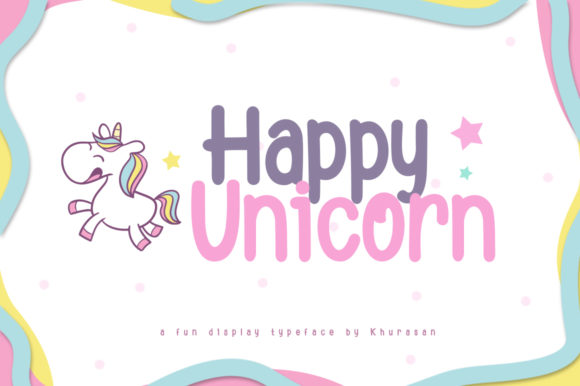
Unleash your imagination with Happy Unicorn Font, a playful and captivating display font that will transport you to a world of whimsy and wonder. This typographic marvel, meticulously crafted by the skilled artisans at Khurasan, is an enchanting fusion of joy and creativity.
Step into a realm where words dance with delight, where every letter is a celebration. Happy Unicorn Font is not just a font; it's an invitation to let your imagination soar. Its whimsical strokes and cheerful curves will infuse your designs with an irresistible charm, leaving a lasting impression on your audience.
Picture this: a poster adorned with the Happy Unicorn Font, its cheerful characters inviting passersby to embark on a magical adventure. Or envision a website that comes alive with the font's playful spirit, captivating visitors with its infectious energy. Let your creativity run wild as you explore the endless possibilities that Happy Unicorn Font offers.
This font is more than just a design element; it's an extension of your personality. Its vibrant energy and infectious charm will resonate with those who appreciate the extraordinary. Whether you're a graphic designer, an artist, or simply someone who loves to add a touch of magic to their digital creations, Happy Unicorn Font is your perfect companion.
Join the ranks of those who have embraced the whimsical allure of Happy Unicorn Font. Let its playful spirit elevate your designs to new heights, transforming your creative visions into captivating realities. Experience the joy of using a font that brings smiles to faces and sparks conversations.